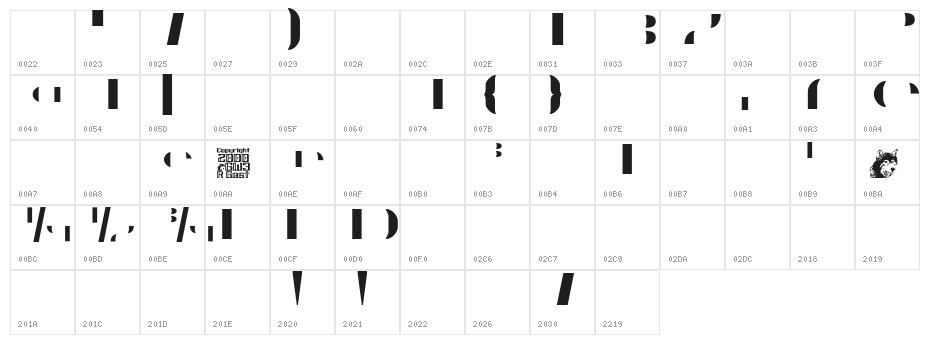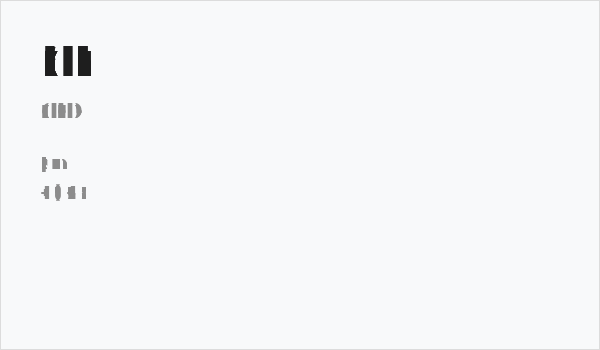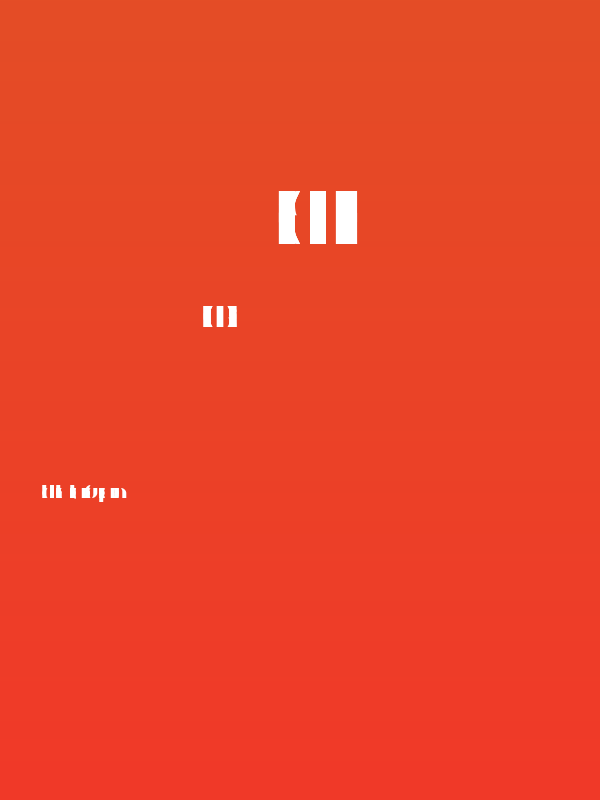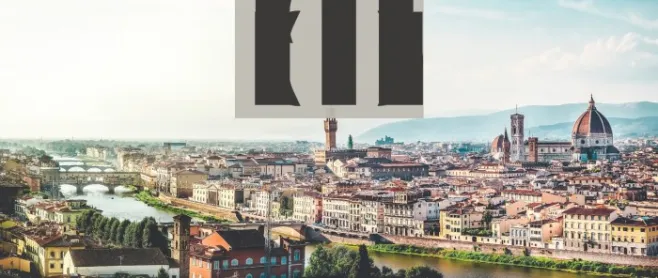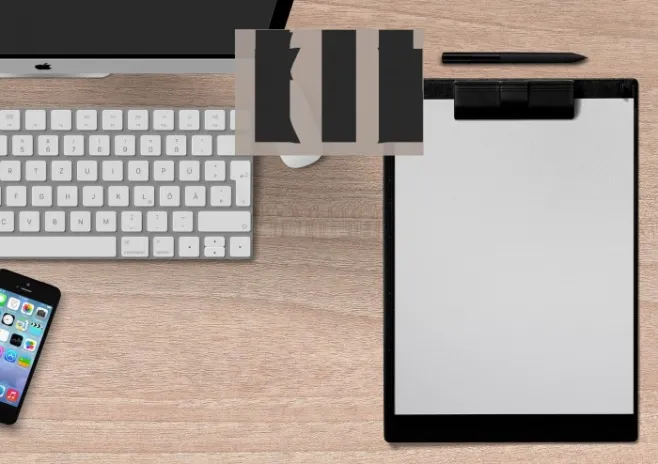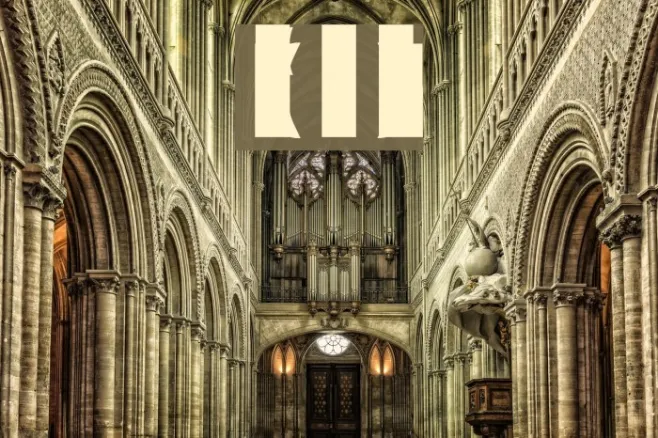
Suncatcher Fill Font
Suncatcher Fill Description
This font features a bold and impactful design with a distinct geometric style. The characters are constructed with thick, solid lines, creating a strong visual presence. The design is modern and minimalistic, with a focus on clean, straight edges and uniformity across all characters. The uppercase and lowercase letters maintain a consistent height, contributing to a cohesive and structured appearance. This font is ideal for making a statement, with its boldness ensuring it stands out in any context.
| Proposed Projects | Ideal for branding, posters, headlines, and any project that requires a strong visual impact. |